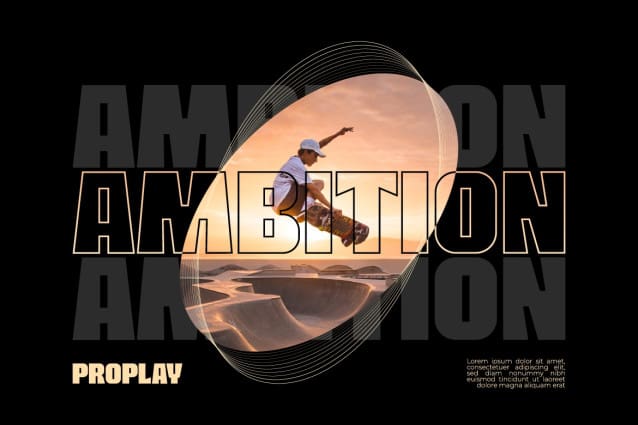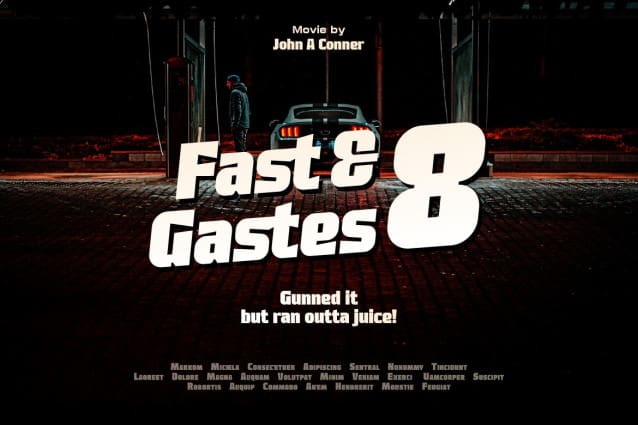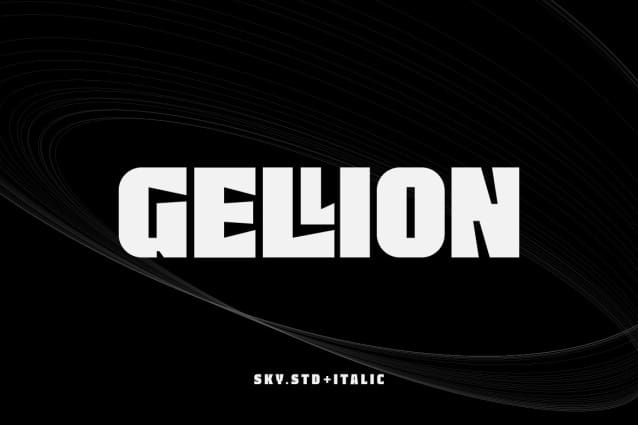
Gellion Font
Gellion Font is a bold display font that shows strength while maintaining a friendly impression.
This font is perfect for funky energetic design needs and promotional designs that require a strong impression on the audience.
Gellion comes with two variables regular and italic oblique.